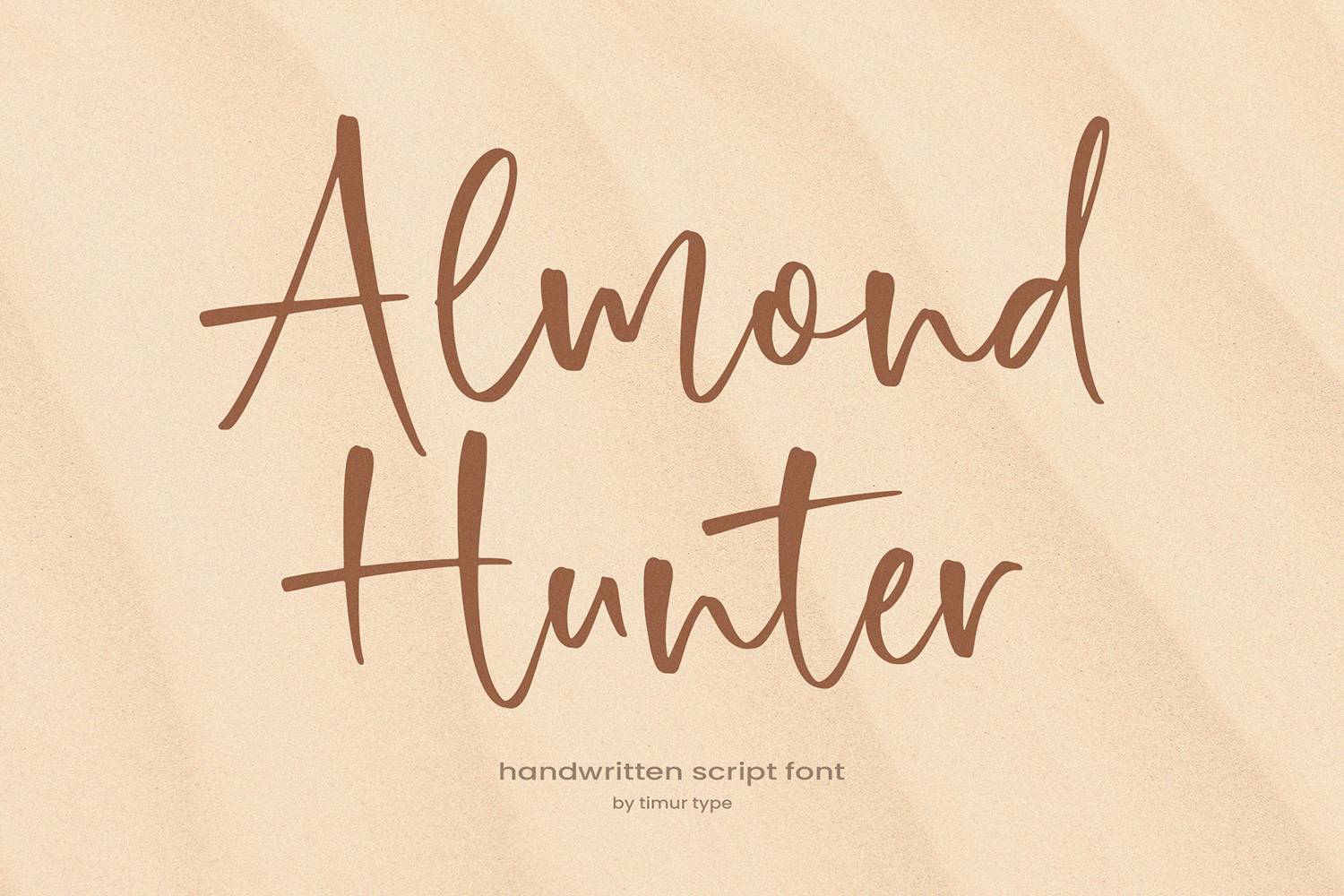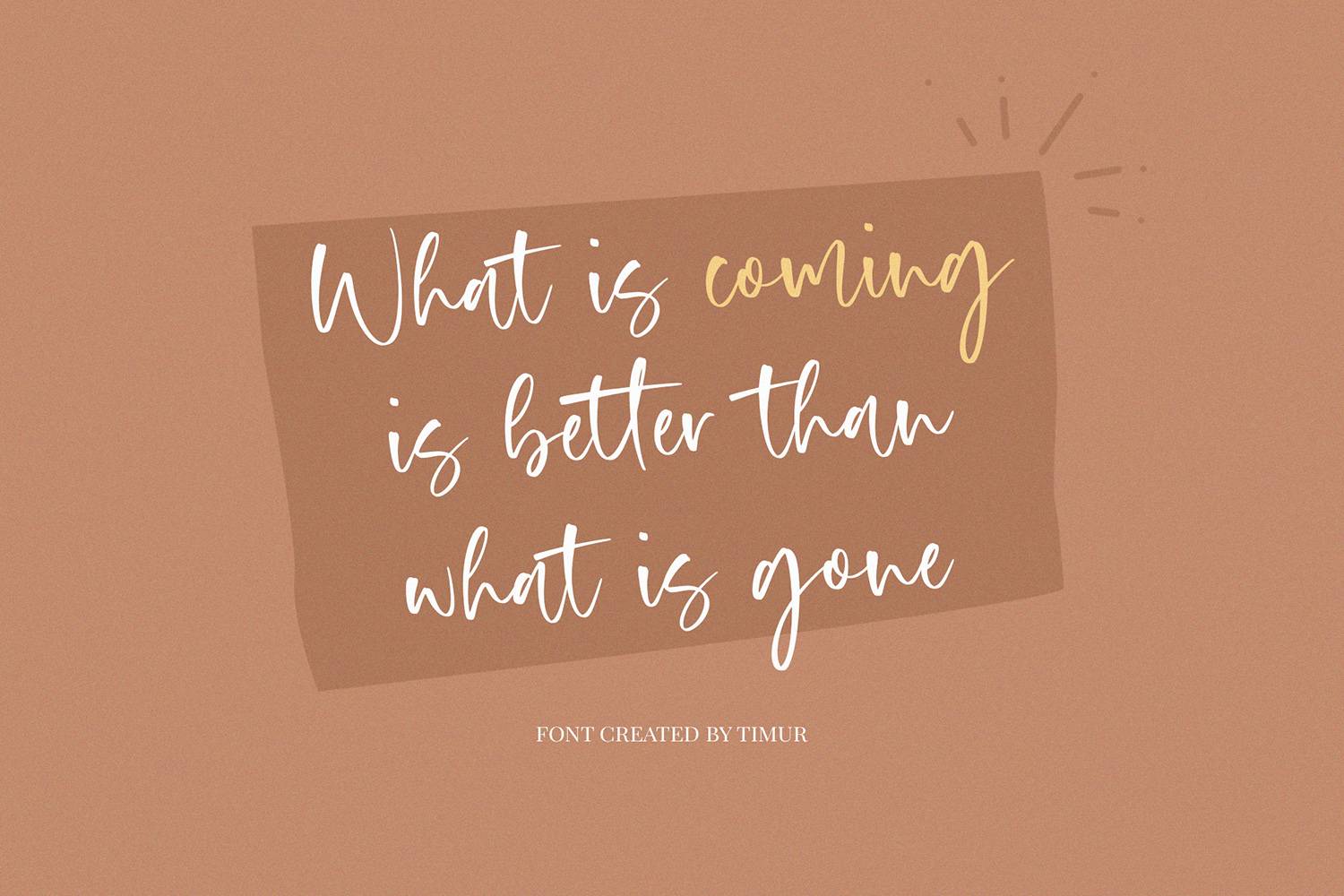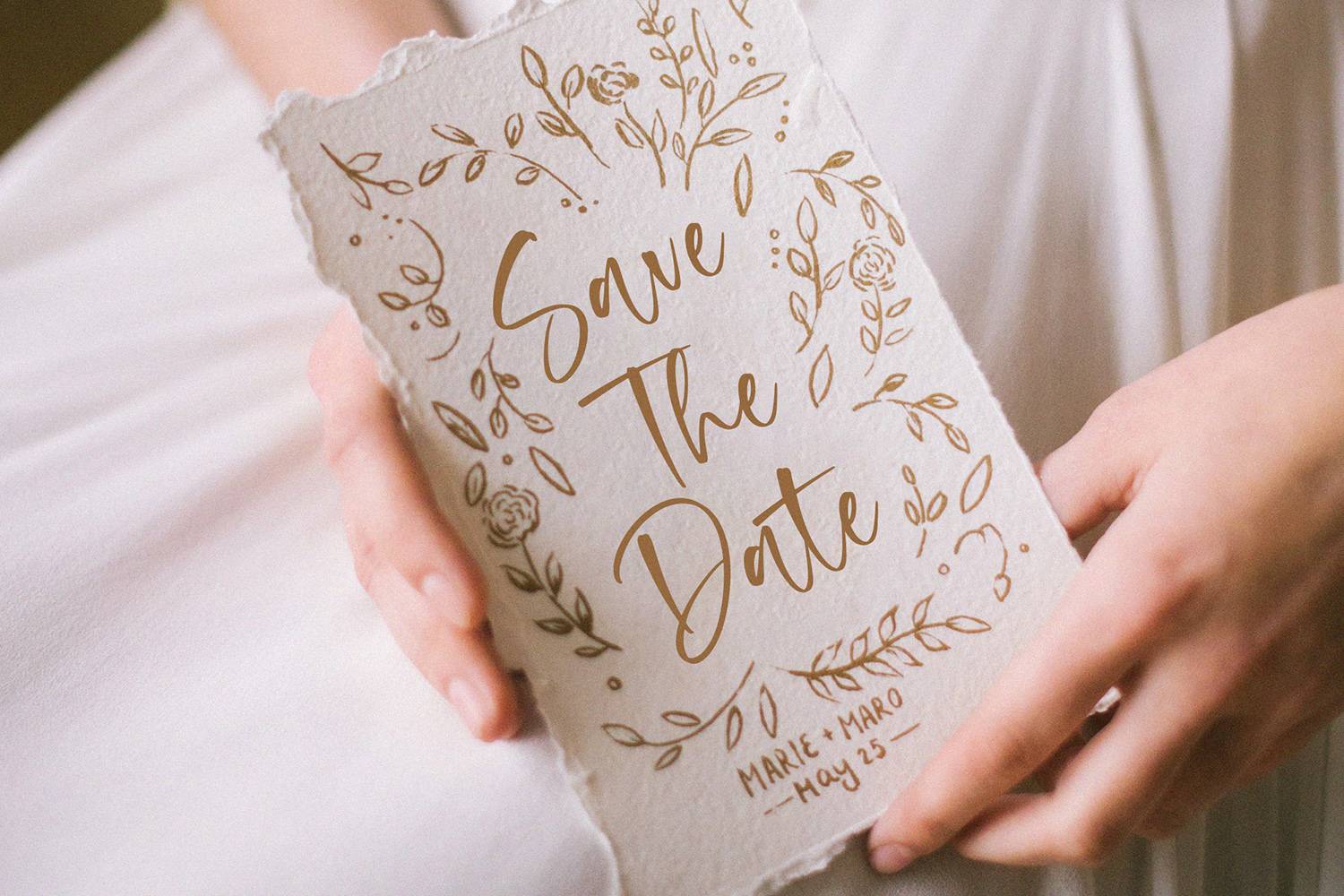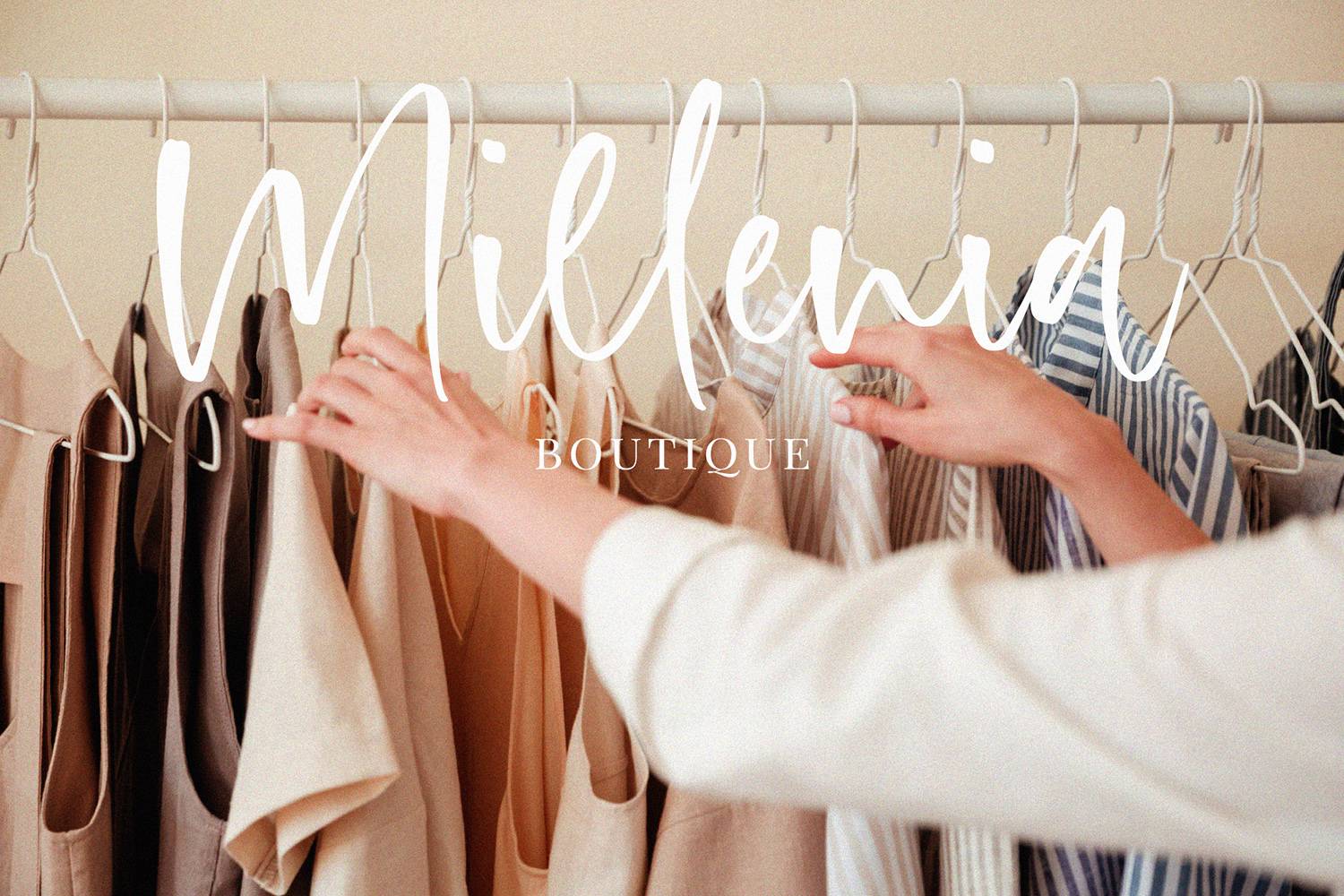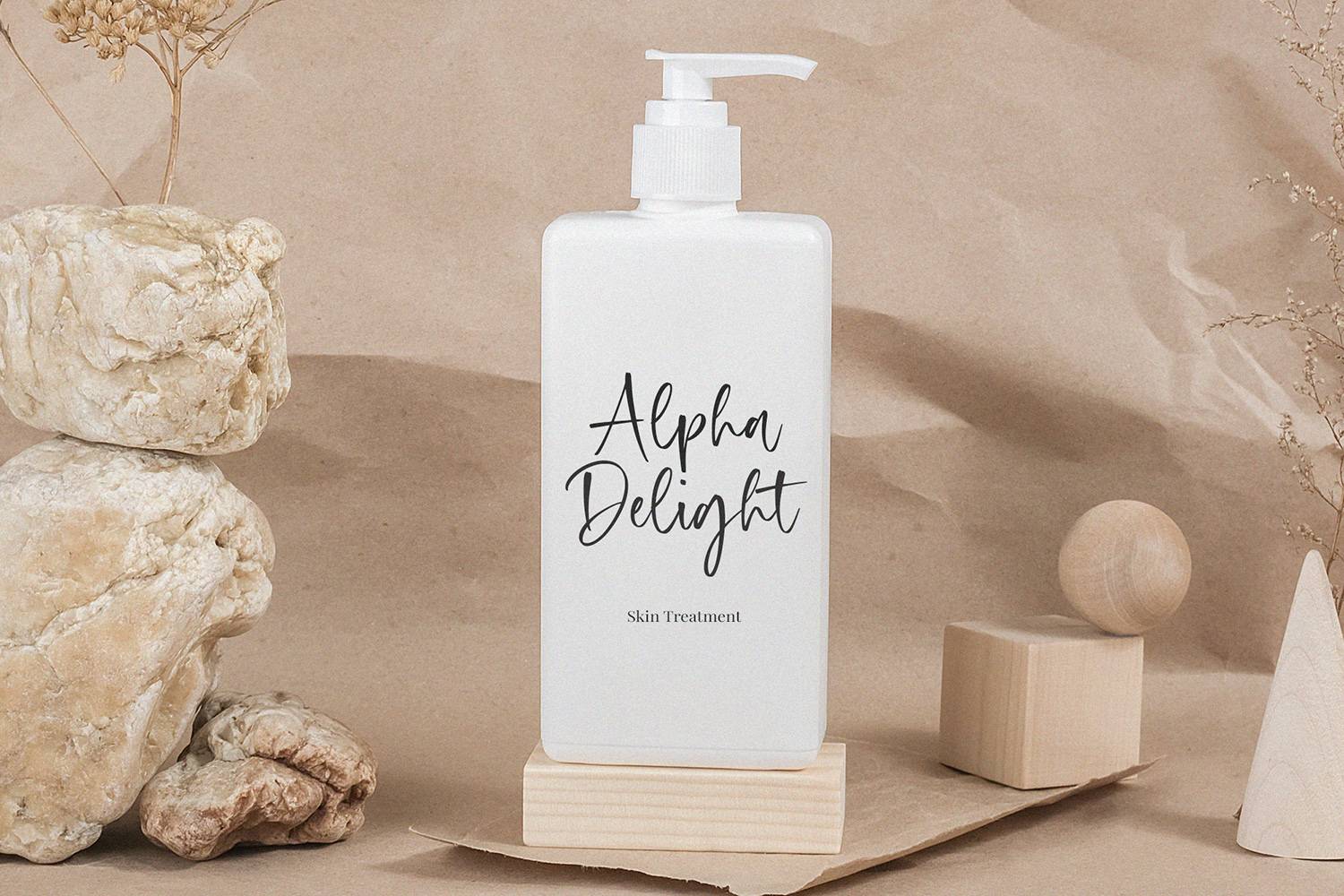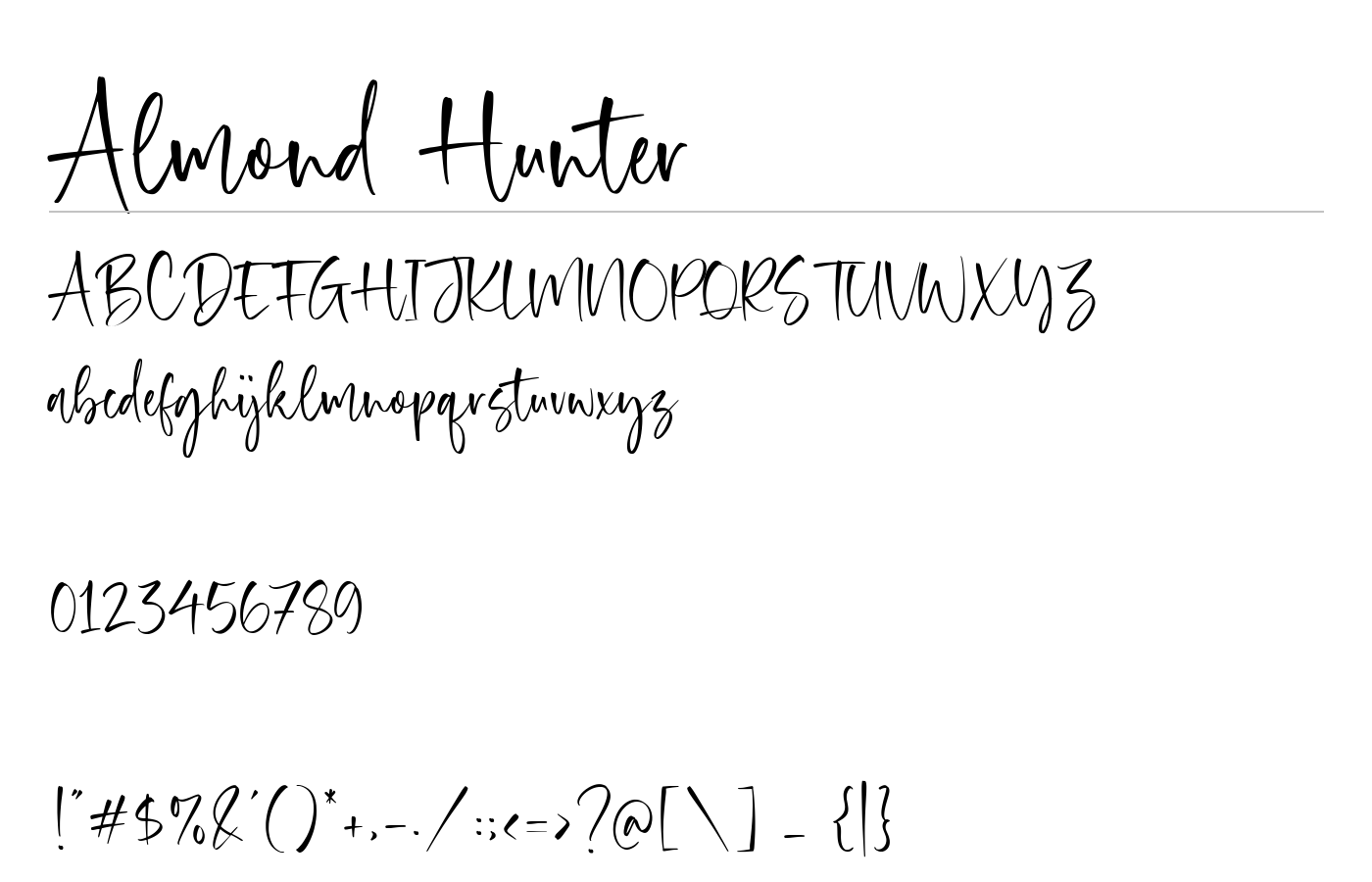
Almond Hunter is a slender, handwritten script font that exudes a casual, elegant charm with its tall, flowing letterforms and delicate stroke contrasts. Its light weight and airy spacing make it perfect for projects needing a personal, friendly touch, such as invitations, branding, and creative editorial designs. This font is ideal for conveying warmth and individuality while maintaining a clean, modern aesthetic.
Almond Hunter Font
About Almond Hunter Font